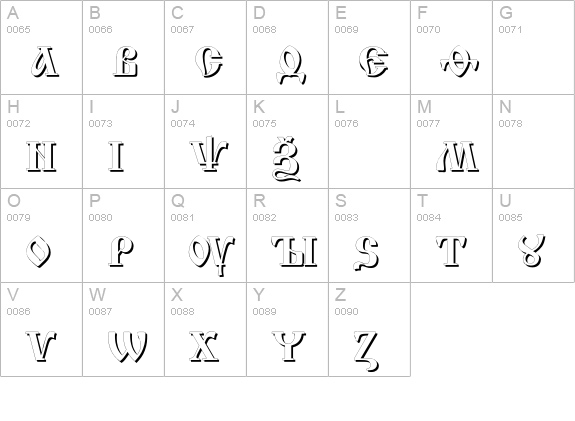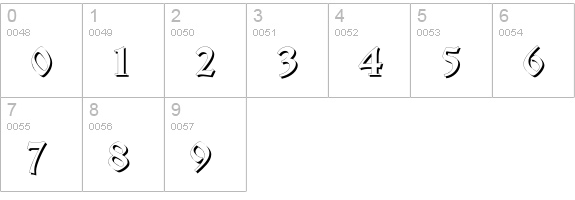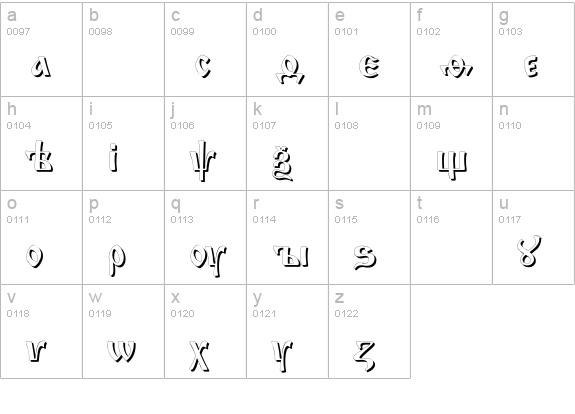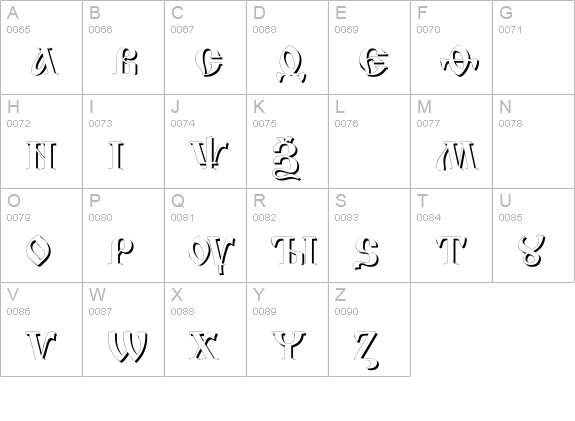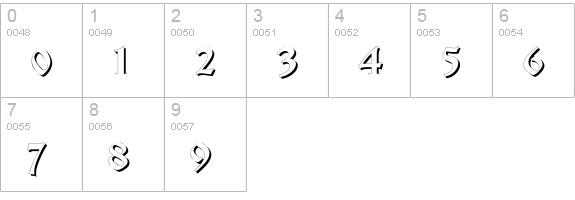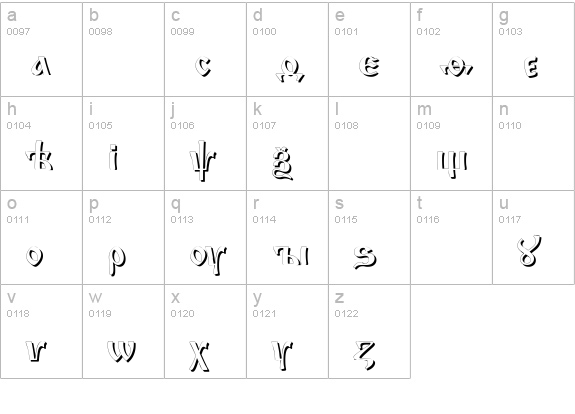
PT IzhitsaShadow Cyrillic Font Details
Introducing the captivating and enigmatic PT IzhitsaShadow Cyrillic font, an exquisite typeface that effortlessly combines elegance and mystery in its design. This unique and striking font is sure to make a lasting impression, whether used for titles, headlines, or any other creative project. With its intricate and carefully crafted letterforms, PT IzhitsaShadow Cyrillic font exudes an aura of intrigue and sophistication. The sharp angles and shadow effects add depth and dimension, creating a visually stunning display that commands attention. Each character is meticulously designed to offer a perfect balance between beauty and readability, making it an ideal choice for both digital and print media. One of the most appealing aspects of PT IzhitsaShadow Cyrillic font is that it is freely available for download at FontsMarket.com. This means that you can easily access and utilize this exceptional font without any cost. Whether you are a professional designer or a casual enthusiast, this font offers endless possibilities for your creative endeavors. From branding and advertising to invitations and posters, PT IzhitsaShadow Cyrillic font is a versatile typeface that will elevate your designs to new heights. Its bold presence and distinctive style are guaranteed to leave a lasting impression on your audience, making it an invaluable asset in your font collection. So, if you're looking for a font that combines elegance, mystique, and affordability, PT IzhitsaShadow Cyrillic font is the perfect choice. Download it for free at FontsMarket.com and unlock a world of endless design possibilities. Let your creativity soar with this captivating and one-of-a-kind font.